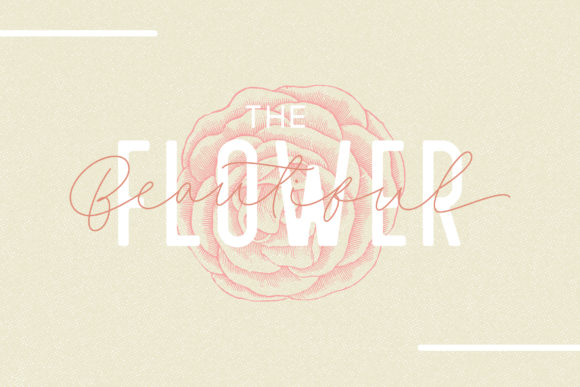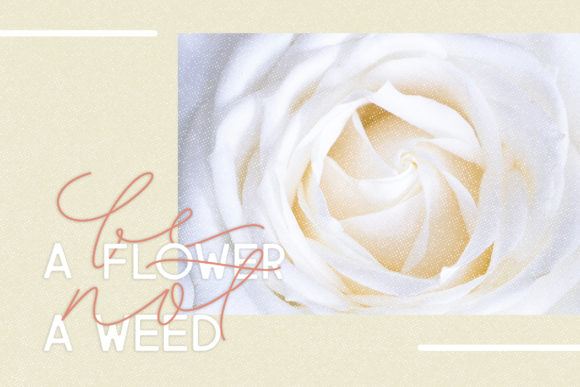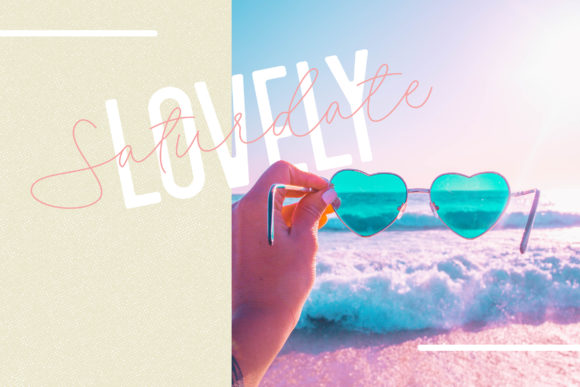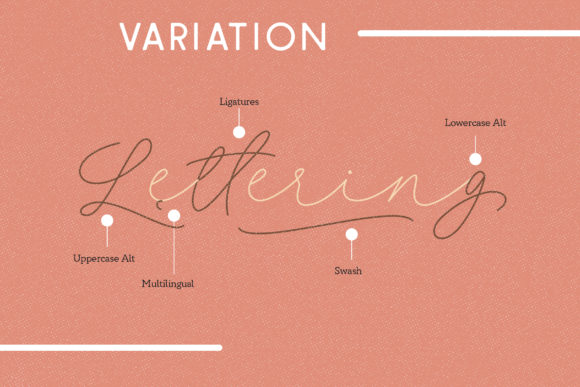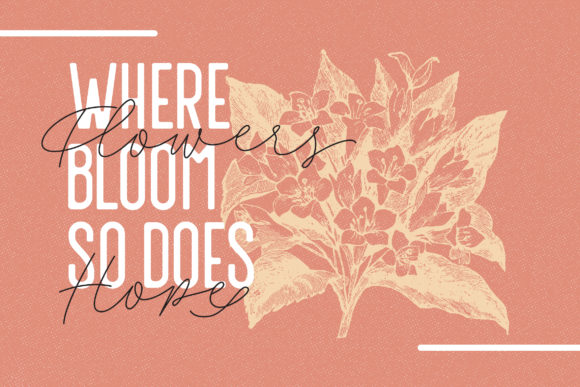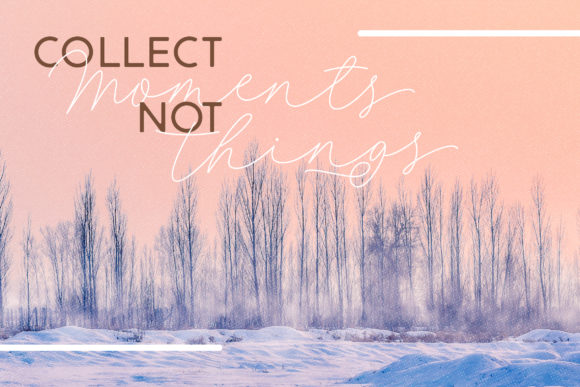
Filia Font: A Retro-Inspired Display Font Trio for Designers and Crafters
In the world of typography, fonts play a crucial role in conveying messages, evoking emotions, and creating visual identities. For designers and crafters, finding the perfect font can be a daunting task, especially when looking for something unique and attention-grabbing. This is where Filia Font comes in – a distinctive display font trio that draws inspiration from classic posters and exudes a retro feel.
The Story Behind Filia Font
Filia Font is a carefully crafted font trio that pays homage to the golden age of poster design. Its creators aimed to capture the essence of vintage typography, blending nostalgia with modern flair. The result is a set of three fonts that are not only visually striking but also versatile and easy to use.
What Makes Filia Font Unique?
Filia Font stands out from the crowd due to its distinct retro aesthetic, which is achieved through a combination of bold lines, elegant curves, and a hint of playfulness. The font trio consists of:
- Filia Script: A flowing script font with a dynamic, handwritten feel.
- Filia Sans: A clean, sans-serif font with a geometric and modern twist.
- Filia Serif: A classic serif font with a sophisticated, elegant look.
Each font in the Filia trio has its own unique character, yet they work harmoniously together to create a cohesive visual identity.
Key Features of Filia Font
Here are some key features that make Filia Font an attractive choice for designers and crafters:
- Retro-inspired design: Filia Font’s vintage flair makes it perfect for projects that require a nostalgic touch.
- High-quality graphics: The font trio is designed with precision and attention to detail, ensuring crisp and clear graphics.
- Easy to use: Filia Font is compatible with most design software, making it simple to integrate into your projects.
- Versatile: The font trio can be used for a wide range of applications, from posters and flyers to digital graphics and crafts.
Use Cases for Filia Font
Filia Font’s versatility makes it suitable for various design projects, including:
- Posters and flyers: Create eye-catching promotional materials with a retro twist.
- Branding and logos: Establish a unique visual identity for your business or product.
- Digital graphics: Use Filia Font to create engaging social media graphics, blog headers, and more.
- Crafts and DIY projects: Add a personal touch to your handmade crafts, such as cards, scrapbook pages, and journal entries.
Tips for Using Filia Font
To get the most out of Filia Font, consider the following tips:
- Experiment with font combinations: Mix and match the three fonts to create visually appealing contrasts.
- Play with colors and textures: Add depth and interest to your designs with bold colors and textures.
- Keep it simple: Don’t overcomplicate your design – let Filia Font’s retro charm shine through.
Filia Font is a unique and captivating display font trio that is sure to inspire designers and crafters. With its retro-inspired design, high-quality graphics, and versatility, Filia Font is an excellent addition to any design toolkit. Whether you’re creating posters, branding materials, or digital graphics, Filia Font is the perfect choice for adding a touch of nostalgia and sophistication to your projects.